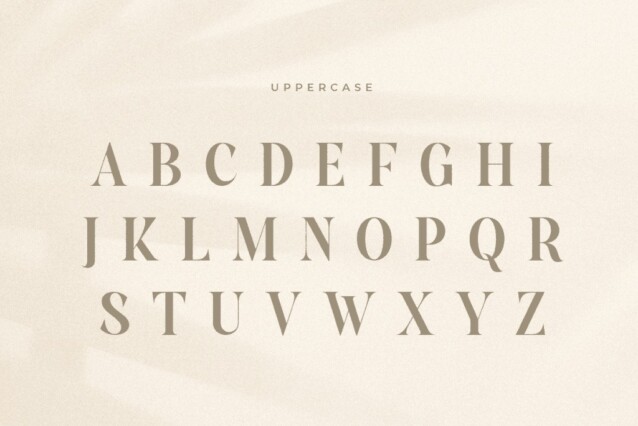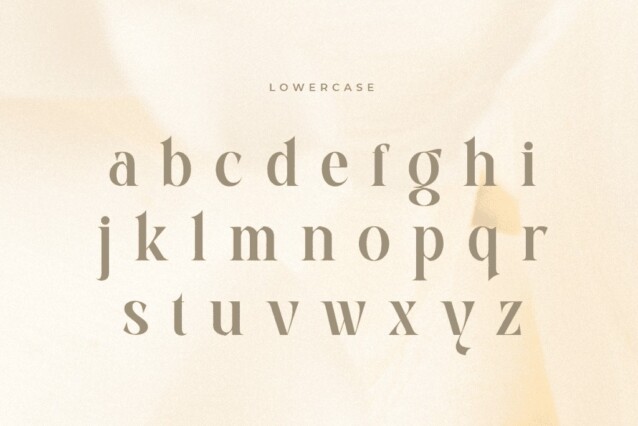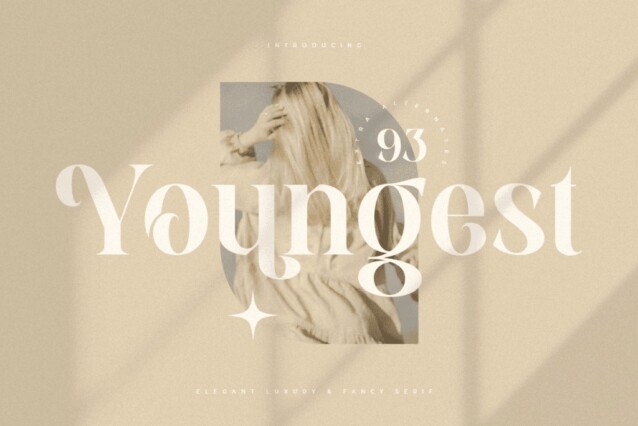
Youngest Font
Youngest Font is a bold and assertive serif font manufactured by Sensatype Studio. It so nice to leverage designer or product owner that need solutions to make their design look more classy and modern. And specially for this font, We prepared any ligatures, and any alternate characters to help you create unlimited variations for your creative needs.